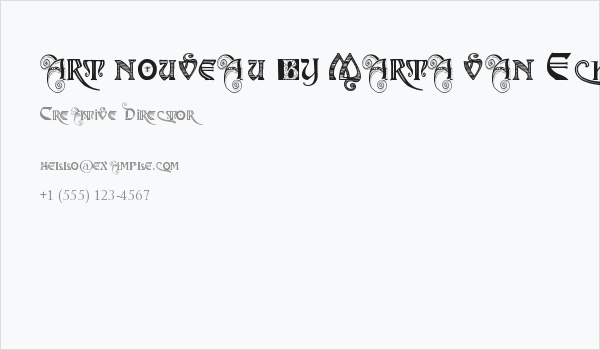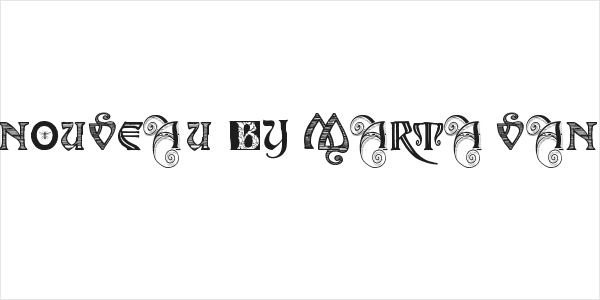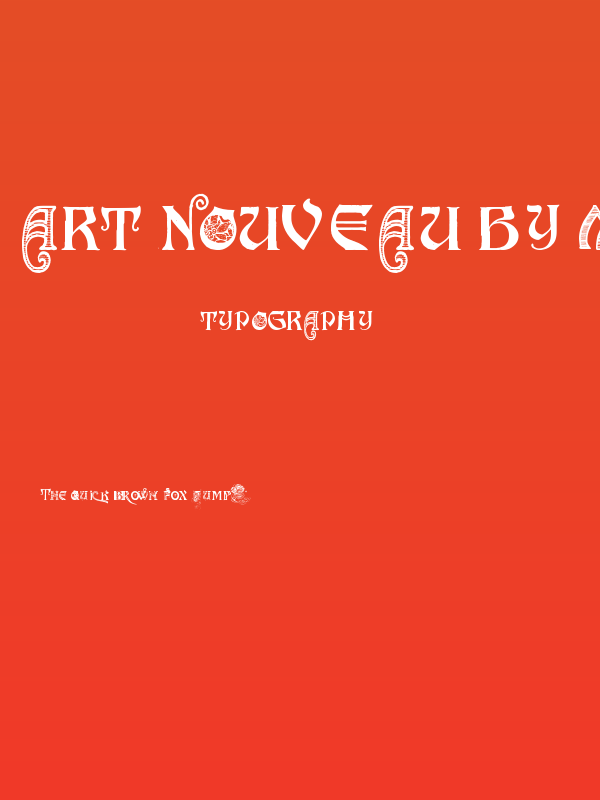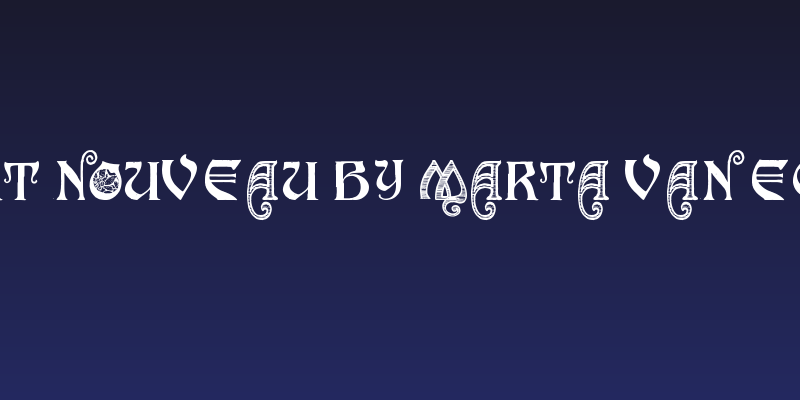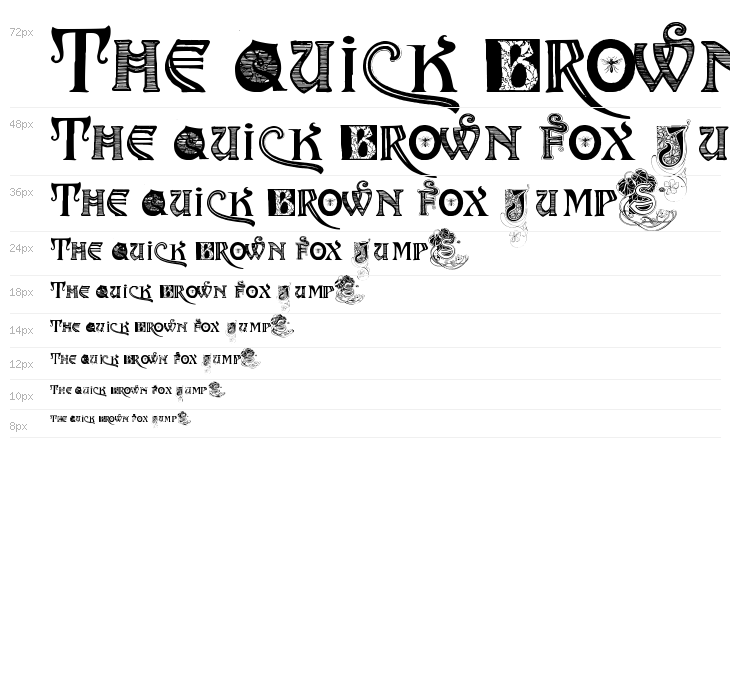
art nouveau by Marta van Eck Font
art nouveau by Marta van Eck Description
This font is a highly decorative and intricate typeface inspired by the Art Nouveau movement. It features elaborate and ornate letterforms with swirling, organic shapes and floral motifs. Each character is unique, with some incorporating detailed embellishments that resemble vines or leaves. The uppercase letters are particularly elaborate, while the lowercase letters maintain the decorative style but with slightly less complexity. The numbers and special characters follow the same ornate design, making the font suitable for artistic and creative projects. The overall appearance is elegant and vintage, capturing the essence of early 20th-century design.
| Overall Style | Vintage, Decorative |
| Use Case | Headlines, Logos, Artistic projects |
| Proposed Projects | Ideal for vintage-themed posters, artistic invitations, decorative book covers, and branding that requires a touch of elegance and historical flair. |